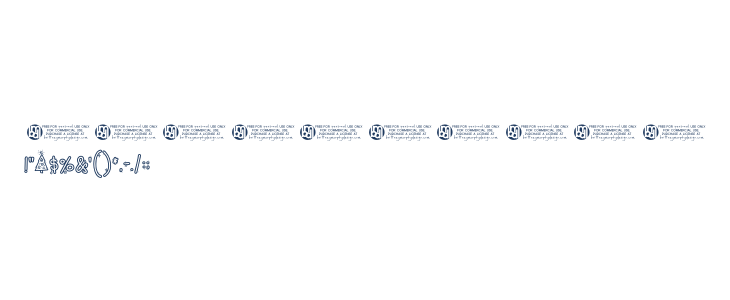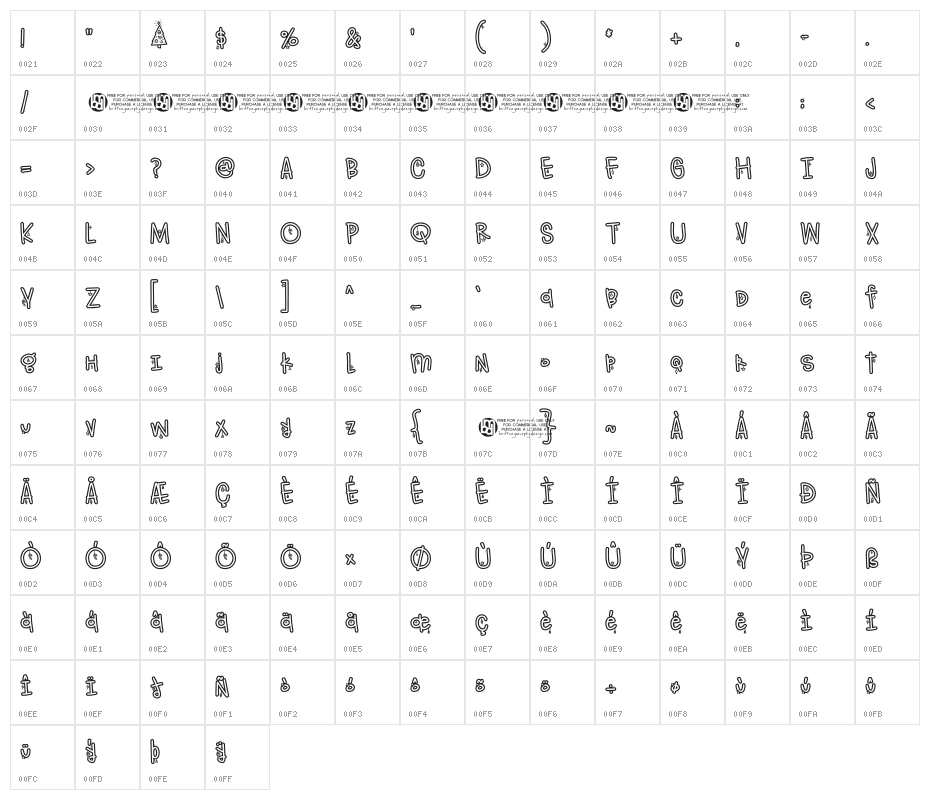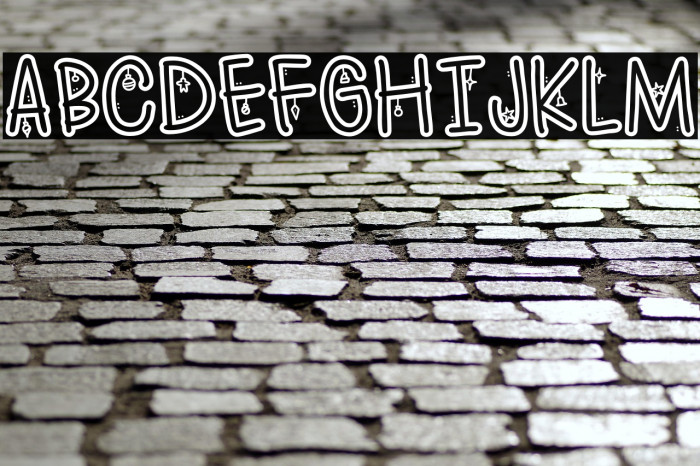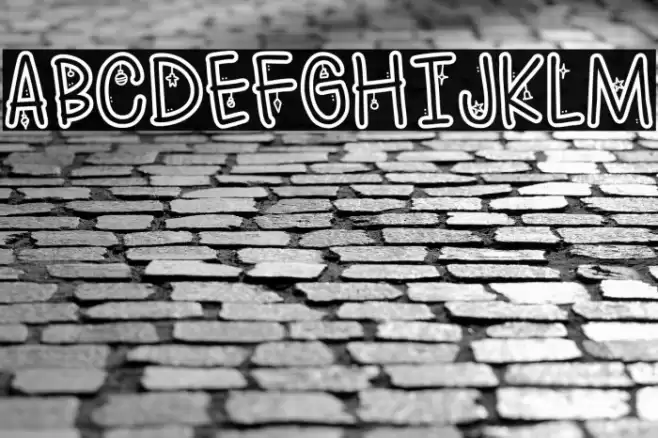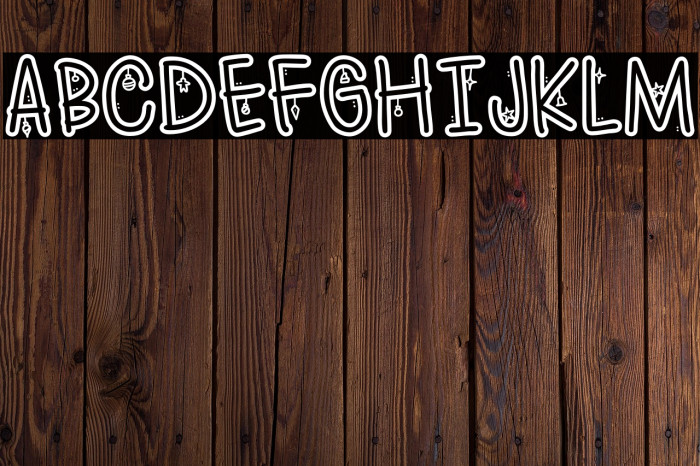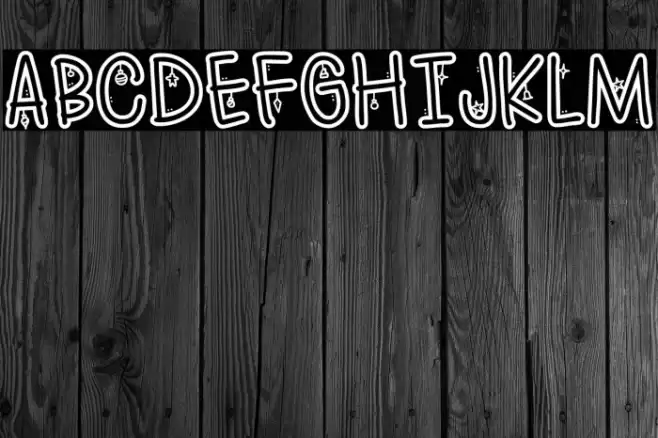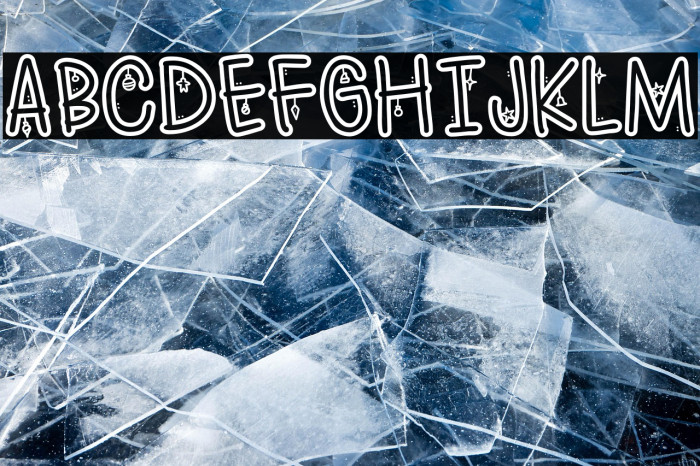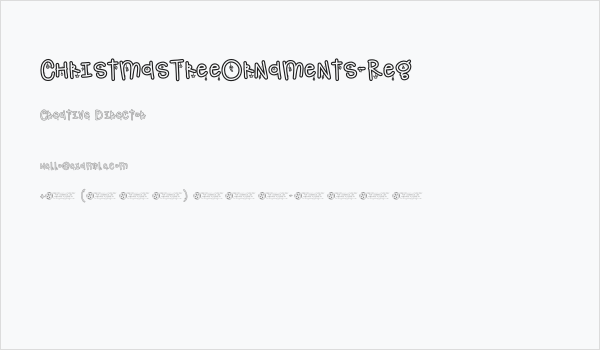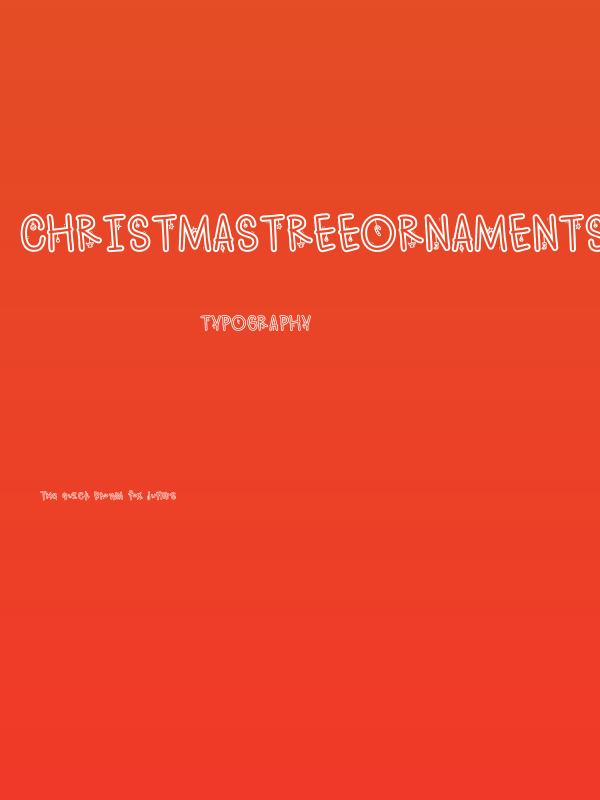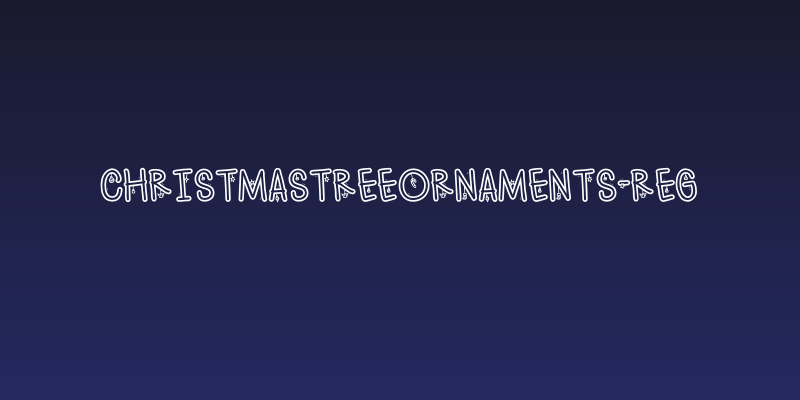
ChristmasTreeOrnaments-Reg Font
ChristmasTreeOrnaments-Reg Description
This whimsical and festive font captures the essence of holiday cheer with its playful design. Each character is adorned with delightful Christmas-themed elements, such as ornaments, stars, and festive decorations, adding a unique and joyful touch. The letters are bold and outlined, providing a clear and impactful appearance. The playful nature of the font is enhanced by its decorative elements, making it perfect for holiday-themed projects. The font maintains a consistent style across uppercase, lowercase, numbers, and special characters, ensuring a cohesive look. Its decorative style is ideal for capturing attention and conveying a sense of fun and celebration.
| Proposed Projects | Ideal for Christmas cards, holiday invitations, festive banners, and seasonal marketing materials. |